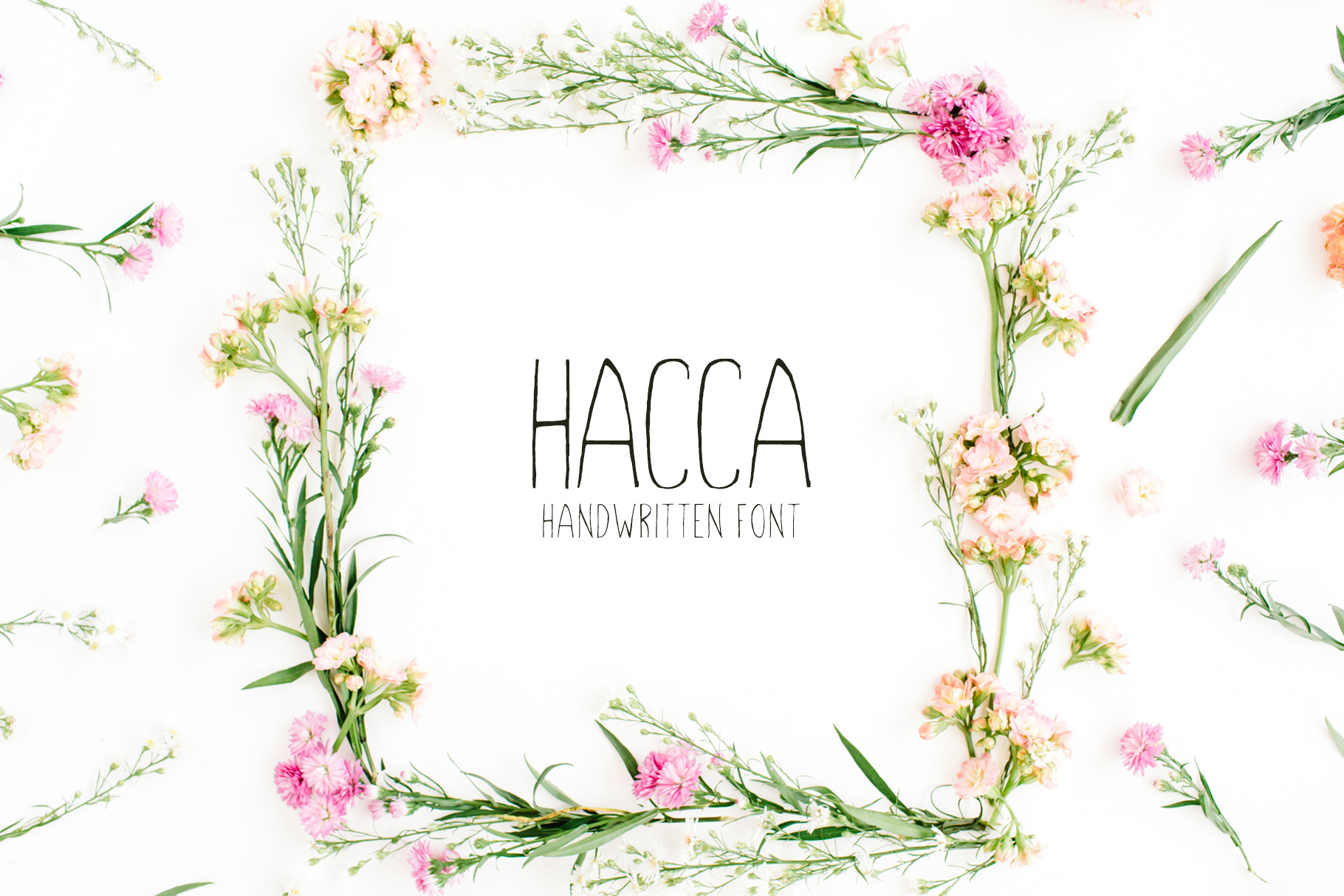
Hacca Handwritten Sans Serif Font
Hacca is a handwritten Sans Serif Font. It comes up with uppercase and lowercase alphabet with numbers, symbols and alternatives. It will looks good on logos, quotes, badges, labels, packaging design, blog, websites, designs, headlines, banners, t-shirt/apparel, greeting card, wedding invitation and more.
Hacca Font Features:
- Uppercase Multilingual Letters
- Lowercase Multilingual Letters